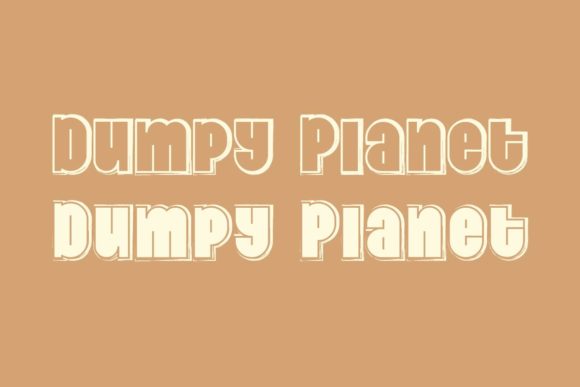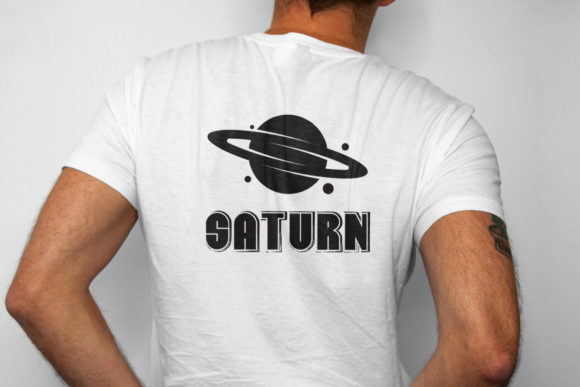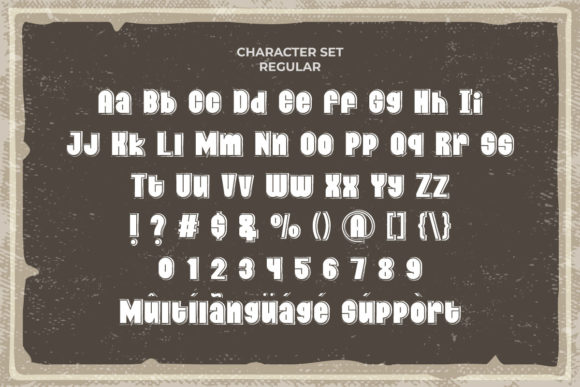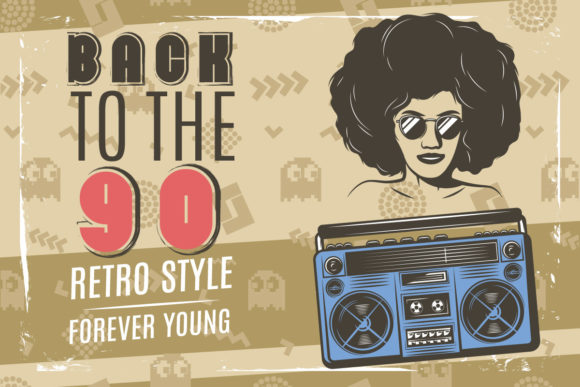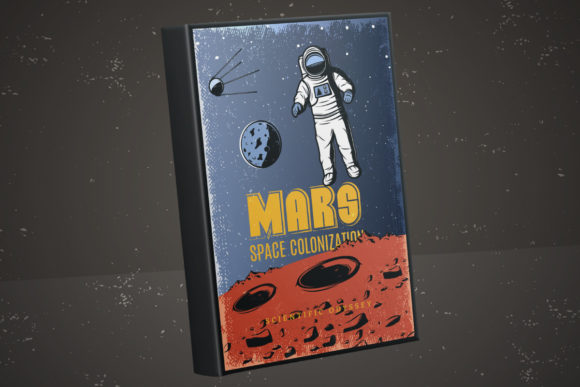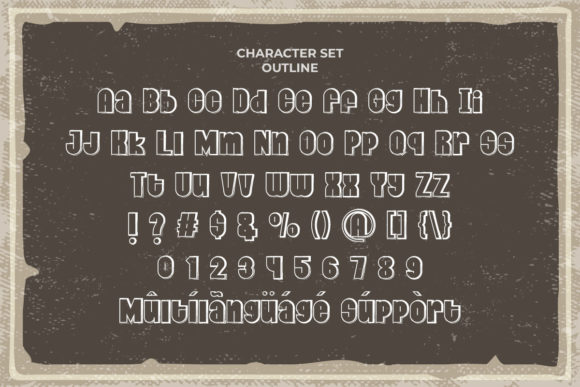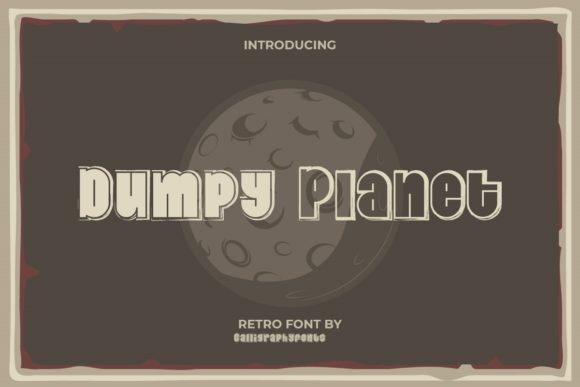
Dumpy Planet Font: Elevate Your Crafting Ideas with a Cool and Assertive Display Font
Are you a designer or crafter looking for a unique and versatile font to take your projects to the next level? Look no further than the Dumpy Planet Font. This cool and assertive display font is perfect for a wide range of crafting ideas, from cards and branding to labels and more. In this article, we’ll explore the features and benefits of the Dumpy Planet Font and show you how to incorporate it into your favorite creations.
What is Dumpy Planet Font?
Dumpy Planet Font is a display font designed to make a statement. Its unique and quirky style is sure to grab attention and add a touch of personality to any project. The font is characterized by its bold and assertive lines, making it perfect for headlines, titles, and other display text.
Key Features of Dumpy Planet Font
- Cool and Assertive Style: The Dumpy Planet Font has a unique and eye-catching style that’s sure to make your projects stand out.
- Versatile: This font is perfect for a wide range of crafting ideas, from cards and branding to labels and more.
- Easily Readable: Despite its bold style, the Dumpy Planet Font is easy to read, making it perfect for display text.
- High-Quality Design: The font is designed with high-quality lines and curves, ensuring it looks great in any size or format.
Benefits of Using Dumpy Planet Font
So why choose the Dumpy Planet Font for your projects? Here are just a few benefits of using this amazing font:
- Adds Personality: The Dumpy Planet Font adds a touch of personality and whimsy to any project, making it perfect for crafters and designers who want to stand out.
- Elevates Crafting Ideas: This font is sure to take your crafting ideas to the next level, adding a level of sophistication and style that’s hard to achieve with other fonts.
- Great for Branding: The bold and assertive style of the Dumpy Planet Font makes it perfect for branding projects, such as logos and labels.
How to Use Dumpy Planet Font in Your Projects
Using the Dumpy Planet Font in your projects is easy. Here are a few ideas to get you started:
- Crafting Cards: Add a personal touch to your greeting cards and invitations with the Dumpy Planet Font.
- Branding and Labels: Use the font to create eye-catching labels and branding materials, such as logos and business cards.
- Signs and Posters: The Dumpy Planet Font is perfect for creating eye-catching signs and posters for events, sales, and more.
- Digital Projects: Use the font in your digital projects, such as social media graphics, blog posts, and more.
Tips and Tricks for Getting the Most Out of Dumpy Planet Font
Here are a few tips and tricks for getting the most out of the Dumpy Planet Font:
- Experiment with Colors: Try pairing the Dumpy Planet Font with different colors and backgrounds to create unique and eye-catching effects.
- Mix and Match Fonts: Combine the Dumpy Planet Font with other fonts to create interesting and dynamic text combinations.
- Play with Size and Scale: Experiment with different sizes and scales to add emphasis and create visual interest.
The Dumpy Planet Font is a cool and assertive display font that’s perfect for designers and crafters looking to elevate their projects. With its unique and quirky style, versatility, and ease of use, this font is sure to become a favorite in your collection. So why wait? Add the Dumpy Planet Font to your projects today and see the amazing results for yourself!